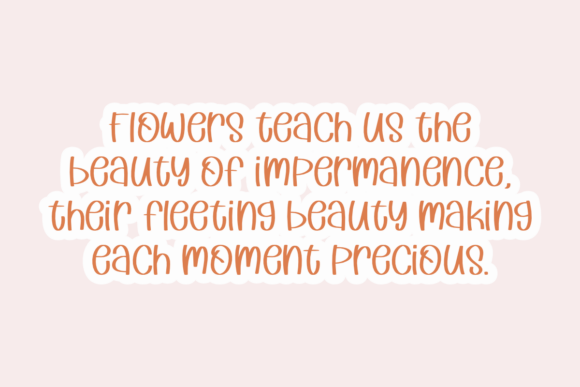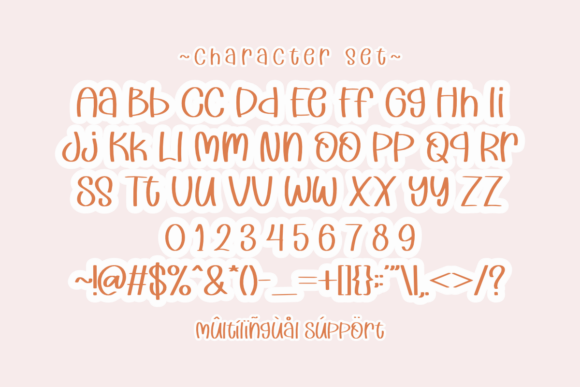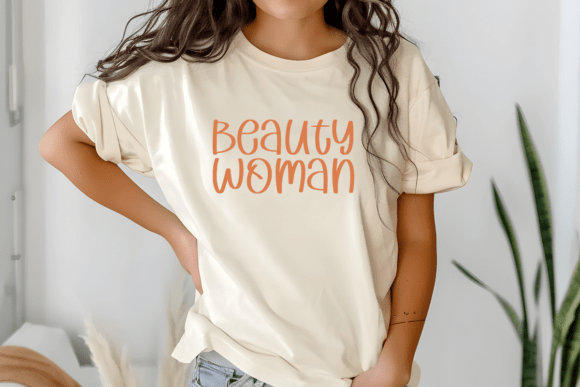
Introduction to Flowers Stickers Font
Who hasn’t felt the joy of watching a child create with stickers and colorful markers? The simple pleasure of making something beautiful and bringing a smile to someone’s face is a powerful reminder of the impact of creative expression. For designers, finding the right font to match that sense of wonder and playfulness can be a challenge, but one that’s about to get a whole lot easier with the introduction of the Flowers Stickers Font.
This delightful handwritten font is a game-changer for designers looking to add a touch of whimsy to their projects. With its rounded, tall characters and soft bounce, the Flowers Stickers Font is perfect for stickers, greeting cards, children’s books, logos, and any design that needs a sweet and cheerful personality.
Whether you’re working on a creative project and need a free download that’s high-quality and easy to use, or you’re simply looking for a design resource that will bring a smile to your face, the Flowers Stickers Font is an invaluable addition to any designer’s toolkit. And with its transparent background, the possibilities are endless – from digital designs to print materials, this font is sure to bring a sense of joy and friendliness to any project.
Key Features of Flowers Stickers Font
- High-quality design resource ideal for creative projects, such as scrapbooking, card making, and digital art.
- Unique, hand-drawn design with transparent background, allowing for seamless integration into any design.
- Perfect for use in digital design, including social media graphics, website design, and email marketing campaigns.
- Easy to customize and edit using popular design software, such as Adobe Illustrator and Photoshop.
- Includes a range of flowers and leaves, allowing users to create a variety of unique and creative designs.
Honest Review: Flowers Stickers Font
I recently had the opportunity to work with the Flowers Stickers Font, and I must say it’s been a delightful addition to my design projects. ✨ The font is perfect for creating whimsical and playful designs that are sure to capture the attention of your audience. With its elegant and intricate designs, it’s no wonder that this font has become a popular choice among designers.
One of the standout features of the Flowers Stickers Font is its high quality and versatility. It can be easily customized to fit your specific design needs, whether you’re working on a free download or a paid project. The font also comes with a transparent background, making it easy to overlay on any design element.
Here are some of the key features that make the Flowers Stickers Font a valuable design resource:
- High-quality designs that are perfect for creative projects
- Transparent background for easy overlay
- Can be customized to fit specific design needs
However, I did encounter a few limitations with the font. ⚠️ For one, the font can be quite large in file size, which may cause issues with slower internet connections. Additionally, the font may not be suitable for all types of projects, particularly those that require a more minimalist aesthetic.
Overall, I’m thoroughly impressed with the Flowers Stickers Font and would highly recommend it to designers looking for a unique and high-quality design resource. With its elegant designs and versatility, it’s a must-have for any creative project.
Tips for Getting the Most Out of Flowers Stickers Font
Experiment with different font sizes and colors to create a unique design. Use the font in combination with other design elements to add visual interest. The transparent background feature allows for endless possibilities.
The Flowers Stickers Font is perfect for creative projects such as invitations, greeting cards, and social media posts. It’s also great for design resources like logos, branding materials, and marketing materials. The font’s high-quality design makes it suitable for professional projects like presentations and documents.